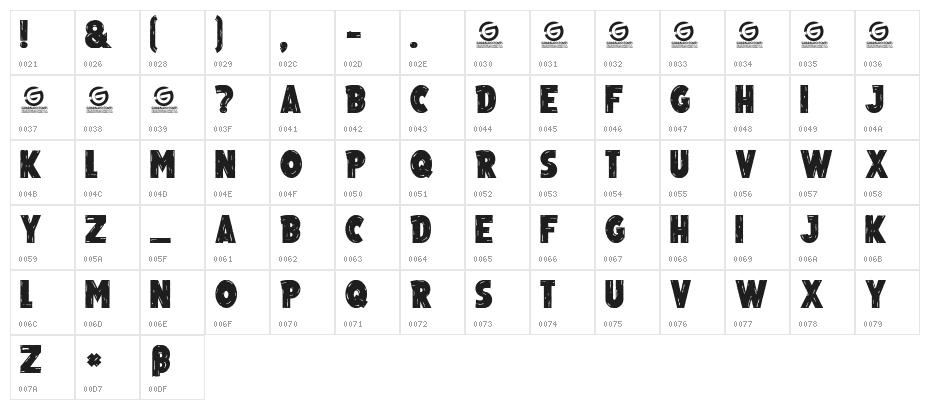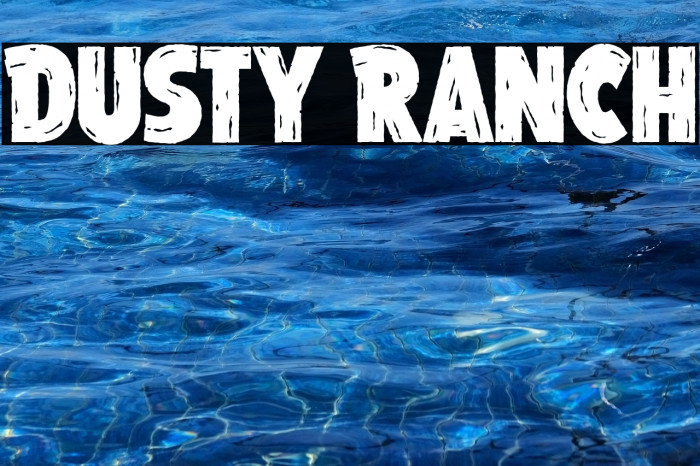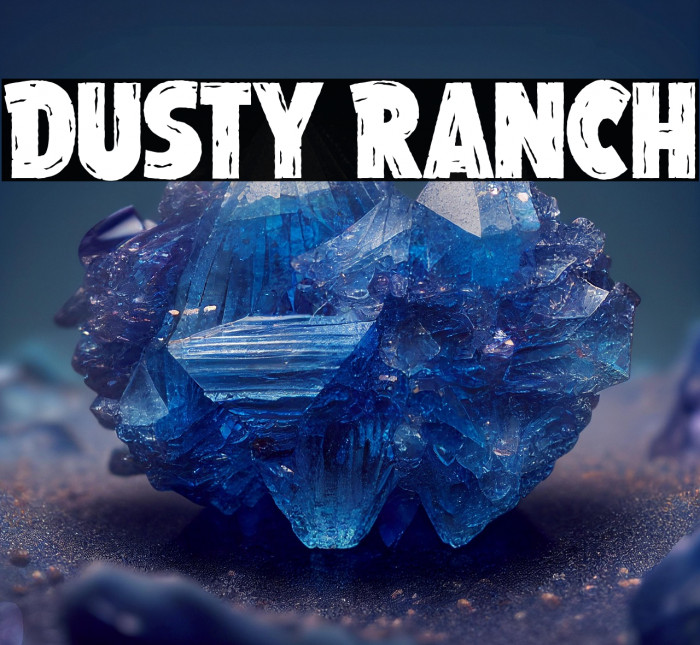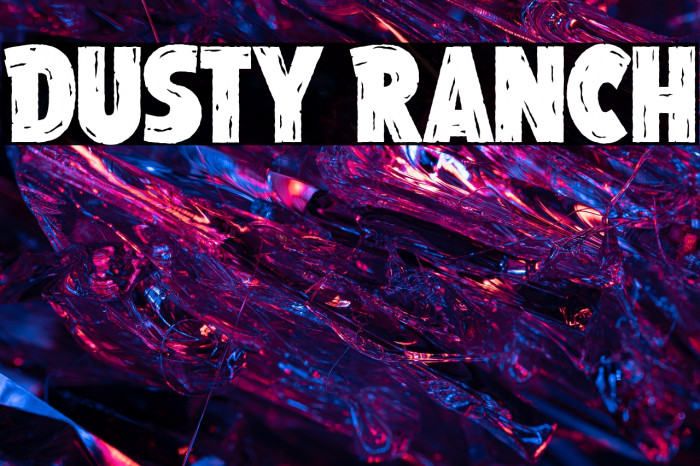
Dusty Ranch Font
Dusty Ranch Description
This font features a bold, distressed style with a rugged, textured appearance reminiscent of worn-out wood or weathered surfaces. The uppercase letters are robust and impactful, making them ideal for attention-grabbing headlines. The texture within each character adds a sense of depth and character, giving it a unique, handcrafted feel. The font maintains a consistent weight throughout, ensuring readability while still conveying a sense of rustic charm. Its boldness and distinctive style make it suitable for projects that require a strong visual impact.